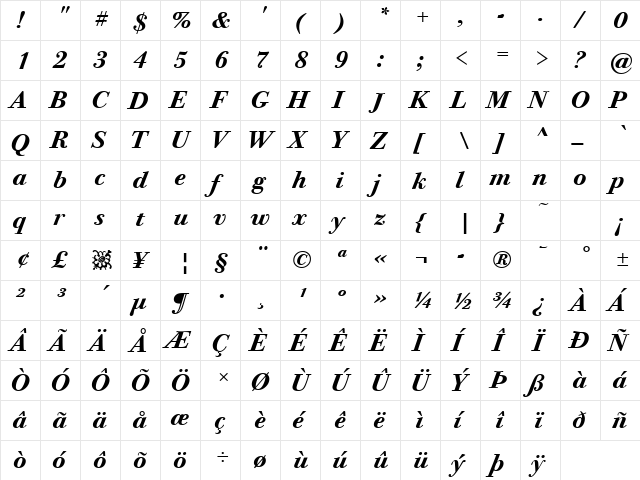
Bodoni Twelve ITC TT BoldItalic
Design Context for Bodoni Twelve ITC TT Typeface
Bodoni Twelve ITC TT is a composed and adaptable typeface that performs quietly and consistently across a wide range of design contexts. The dynamic lean of this cut emphasises speed and emphasis in any layout. Its bold stroke weight gives it real presence on the page.
Pro Tip: Use Bodoni Twelve ITC TT for emphasis, pull quotes, and subheadings where its slanted energy can add rhythm to the layout.